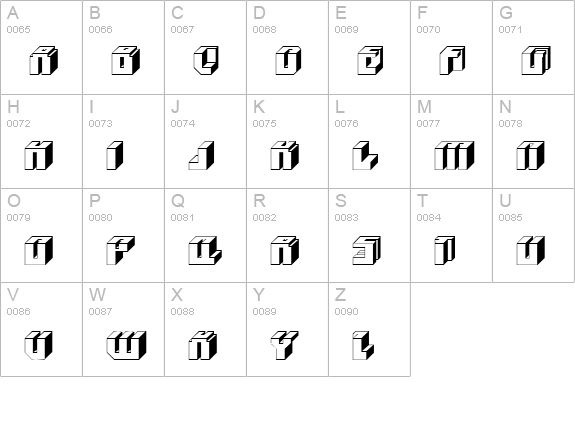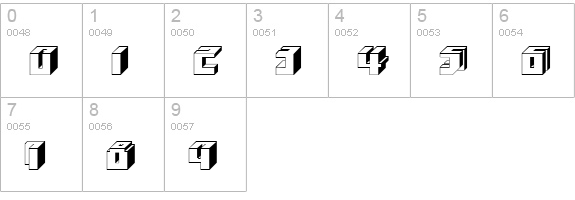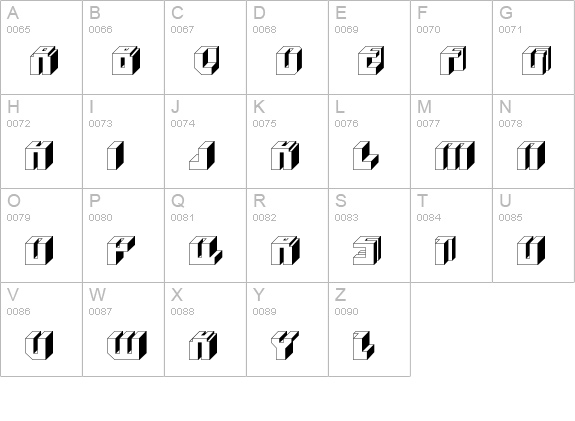
BlockUp font is a modern and eye-catching typeface that stands out with its bold and geometric design. This versatile font is perfect for headlines, posters, logos, and other design projects that require a strong visual impact. With its clean lines and sharp edges, BlockUp exudes a sense of strength and confidence. What sets BlockUp font apart is not just its striking appearance, but also the fact that it is available for free. That's right, you can download this amazing font at FontsMarket.com without having to spend a dime. Whether you're a designer looking to add a unique touch to your creations or just someone who appreciates good typography, BlockUp font is sure to impress. Don't miss out on this opportunity to enhance your designs with this exceptional font - get your free download today!